As a designer, colorful fonts are one of the most exciting tools I work with because they transform text into a visual statement. These fonts go beyond simple letterforms — they carry texture, mood, and emotion directly inside the typography. I use colorful fonts when I want designs to feel bold, playful, expressive, or instantly eye-catching without relying on additional illustrations.
Colorful fonts work especially well for children’s projects, party designs, seasonal graphics, school materials, posters, apparel, stickers, and social media visuals. Animal patterns, neon effects, varsity styles, and heart-filled letters all communicate different emotions at a glance. A leopard-pattern font can feel wild and confident, while a neon rainbow font brings energy and fun. Valentine-themed color fonts instantly create warmth and romance, making them perfect for love-driven designs.
What I value most is efficiency. Colorful fonts already include decoration, which saves time during the design process. Instead of layering textures or adding shapes, I can let the font lead the composition. This allows me to keep layouts clean while still making them visually rich. I also like mixing colorful fonts with simple backgrounds or neutral typefaces to create contrast and balance.
Another big advantage is memorability. Designs using colorful fonts tend to stand out longer in people’s minds. Whether it’s for branding accents, event materials, or creative products, these fonts help projects feel joyful, confident, and full of personality. When used intentionally, colorful fonts don’t overwhelm — they enhance storytelling and make designs feel alive.
For me, colorful fonts are about freedom and expression. They encourage playful experimentation while still delivering strong visual impact. Used thoughtfully, they turn simple words into designs people instantly notice, feel, and remember.
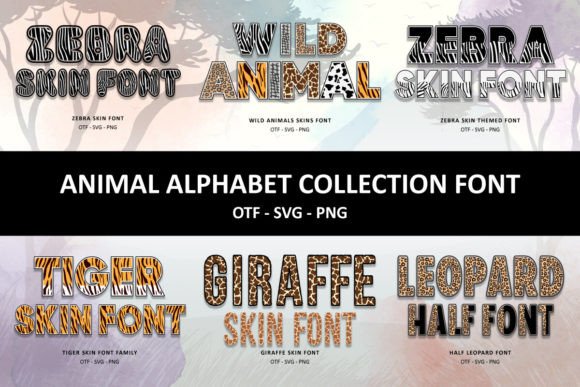
Animal Alphabet Collection Font
I like using the Animal Alphabet Collection when I want typography to feel bold and visually striking. The animal-skin patterns instantly turn letters into design elements, which works great for posters, kids’ projects, apparel, and creative branding. I appreciate having both color and black versions — the black font is perfect for Cricut projects, while the color styles shine in digital designs. This font helps my work stand out with a strong, playful edge.
I enjoy working with Rainbow Dolly Neon when a project needs energy and fun. The neon-inspired colors feel lively and festive, making this font perfect for parties, school projects, holidays, and playful graphics. I use it for invitations, banners, and eye-catching headlines. It brings instant brightness and joy, turning simple text into a celebration.
Back to School Font
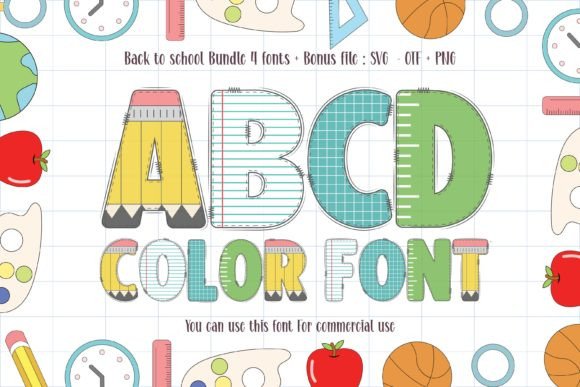
Leopard Varsity Font (Back to School Style)
I like this thick, varsity-style font for bold and youthful designs. The chunky letterforms feel confident and playful, which makes them ideal for school themes, kids’ games, posters, and apparel. It’s easy to read while still feeling fun, helping designs feel strong and energetic.
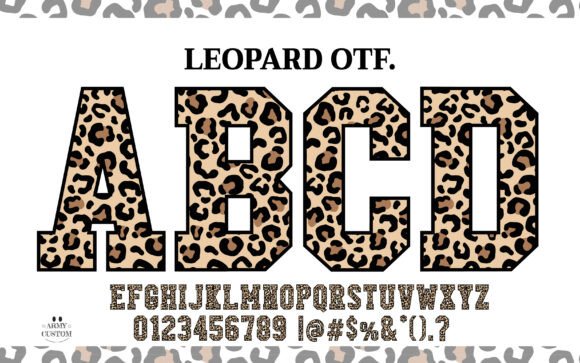
Leopard Varsity Alphabet Font
I enjoy using this leopard-inspired alphabet when I want something wild and expressive. The animal pattern adds personality and movement, making it perfect for fashion graphics, bold branding, and statement designs. I also like that the black version works well with cutting machines, giving flexibility for physical products and crafts.
Love Valentine’s Bundle Font
I love using this Valentine bundle when I want typography to carry emotion. The doodle-style letters filled with heart details feel warm, romantic, and playful. I use it for Valentine cards, gifts, posters, and love-themed designs. This font helps my projects communicate affection in a visual, heartfelt way without needing extra decoration.
In conclusion, colorful fonts are powerful design assets that bring energy, emotion, and individuality directly into typography. From a designer’s perspective, they allow text to become the focal point, reducing the need for extra visual elements. When used with balance and intention, colorful fonts enhance storytelling, capture attention instantly, and make designs more memorable. They are ideal for projects that aim to feel joyful, bold, and expressive, turning simple messages into vibrant visual experiences.